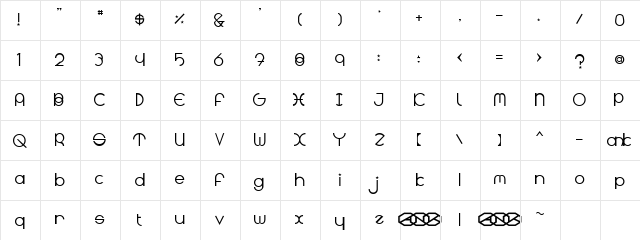
Radius Regular Font Preview
Radius Regular
Design Context for Radius Typeface
Radius is a composed and adaptable typeface that performs quietly and consistently across a wide range of design contexts.